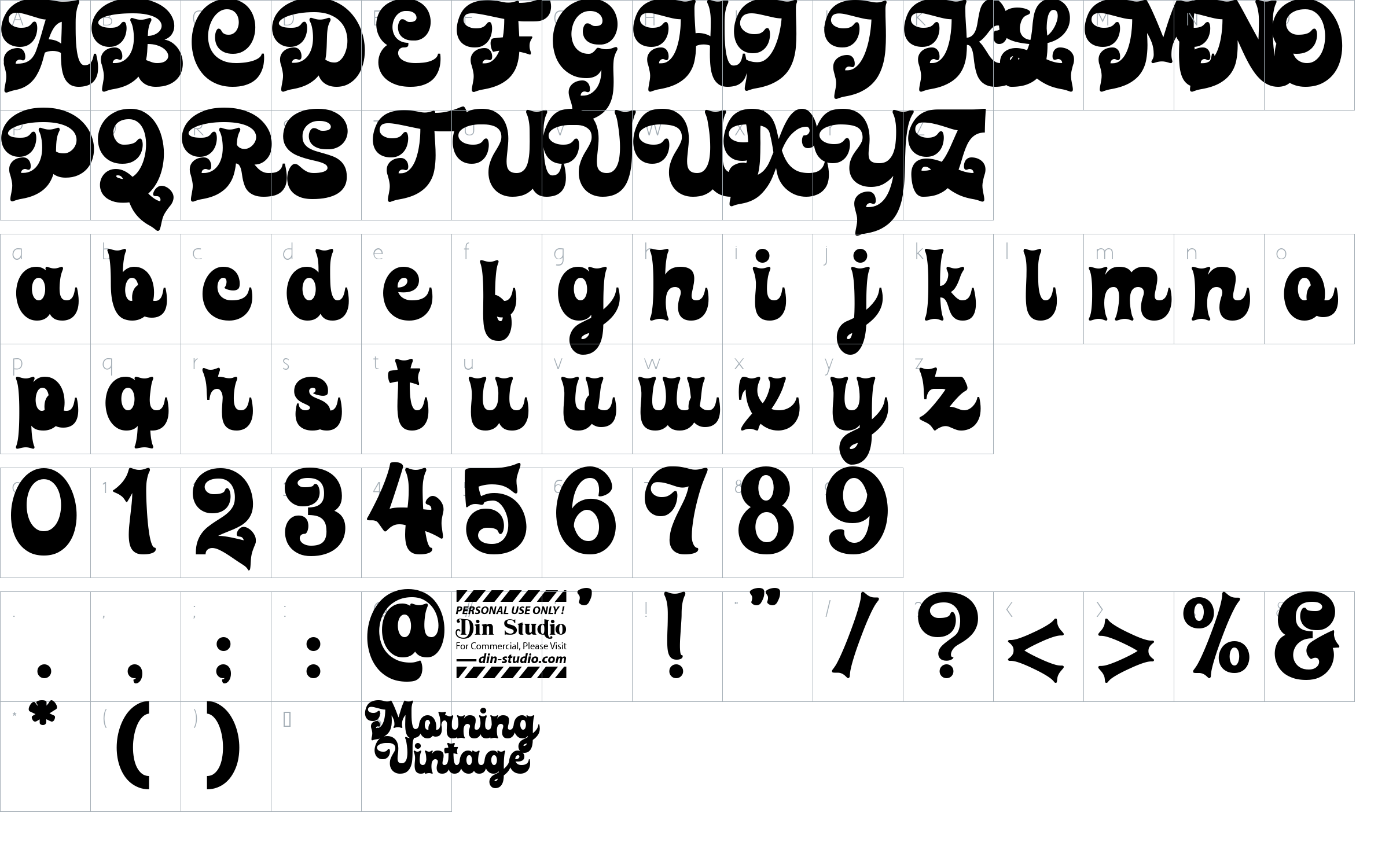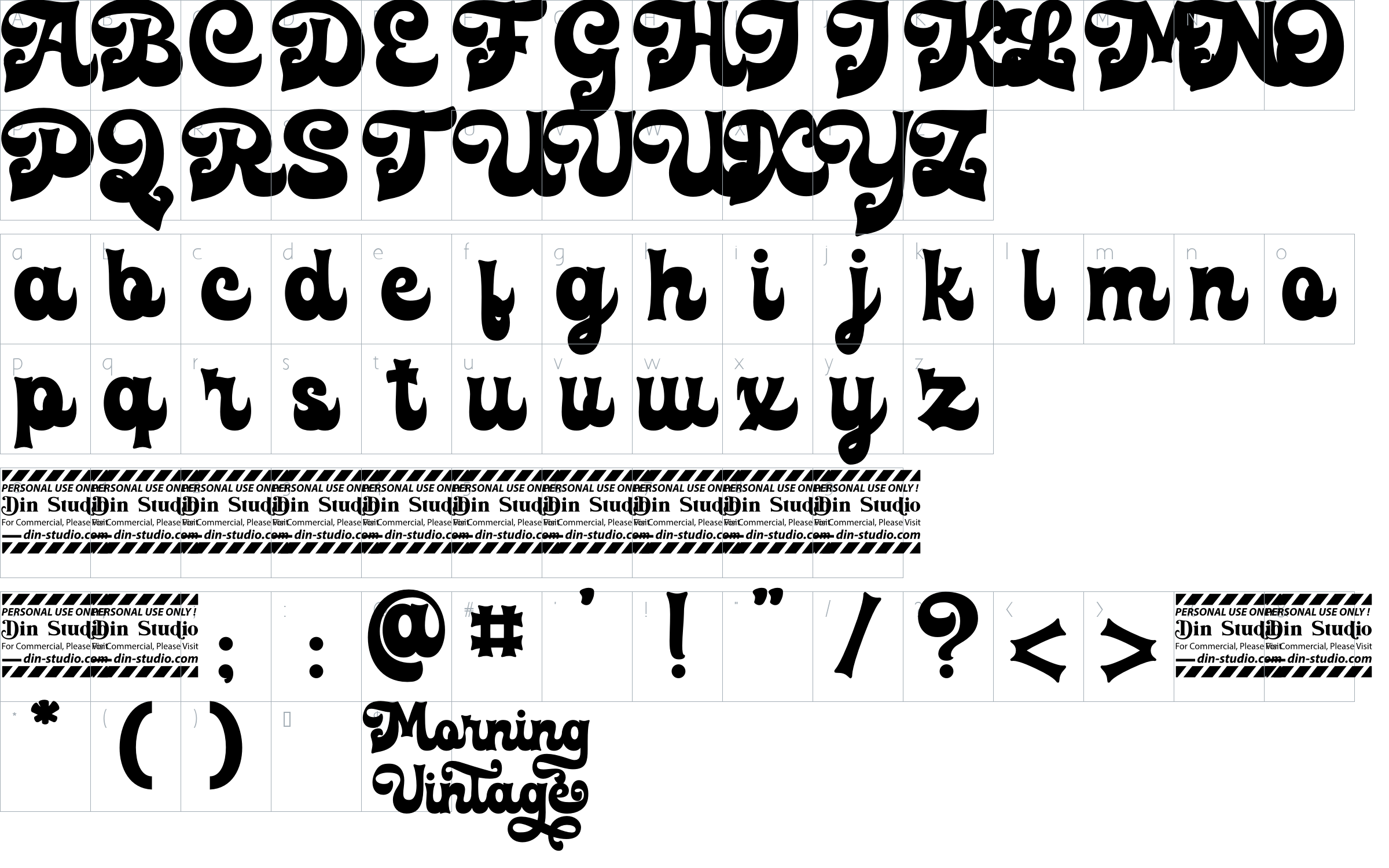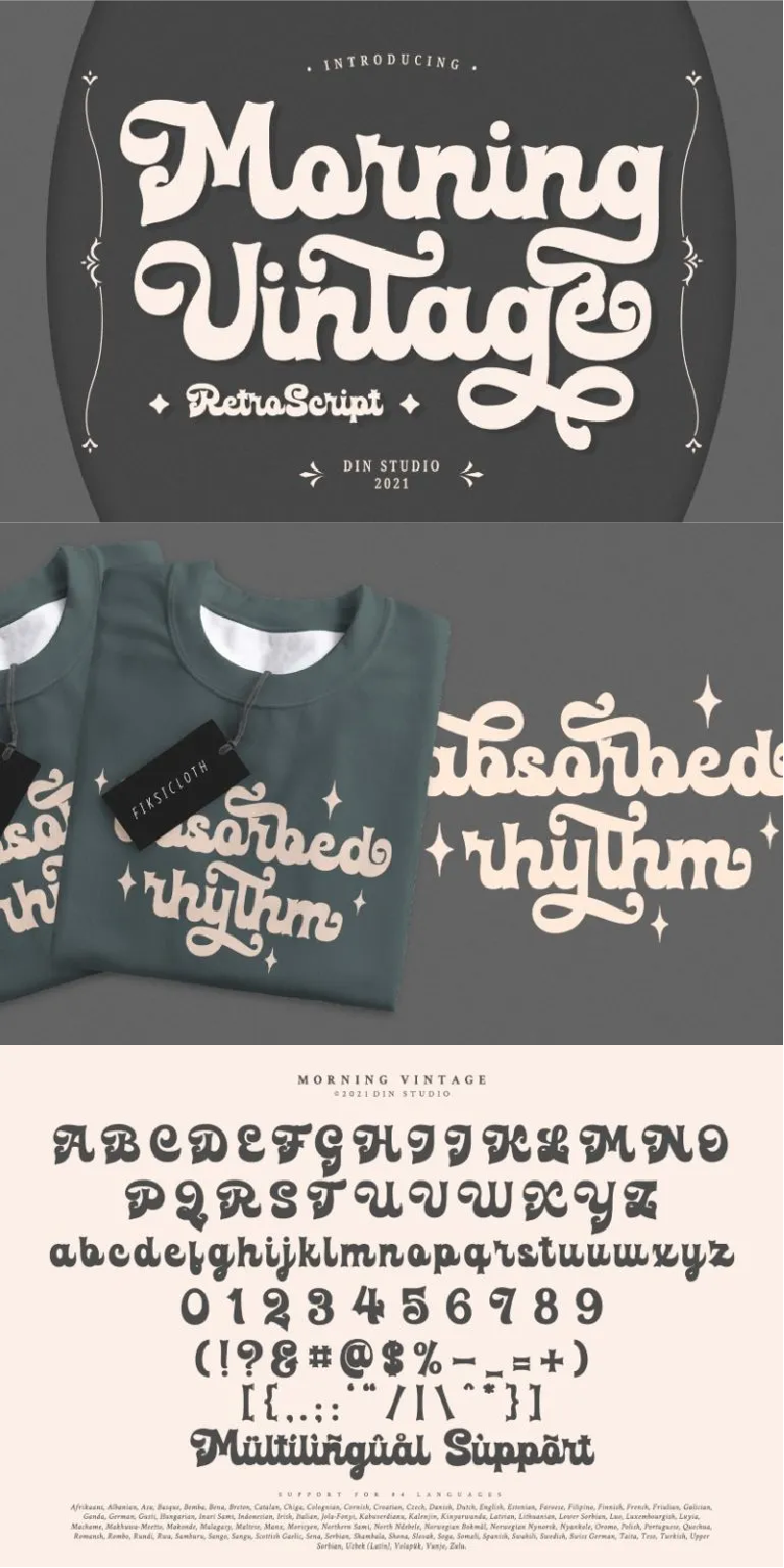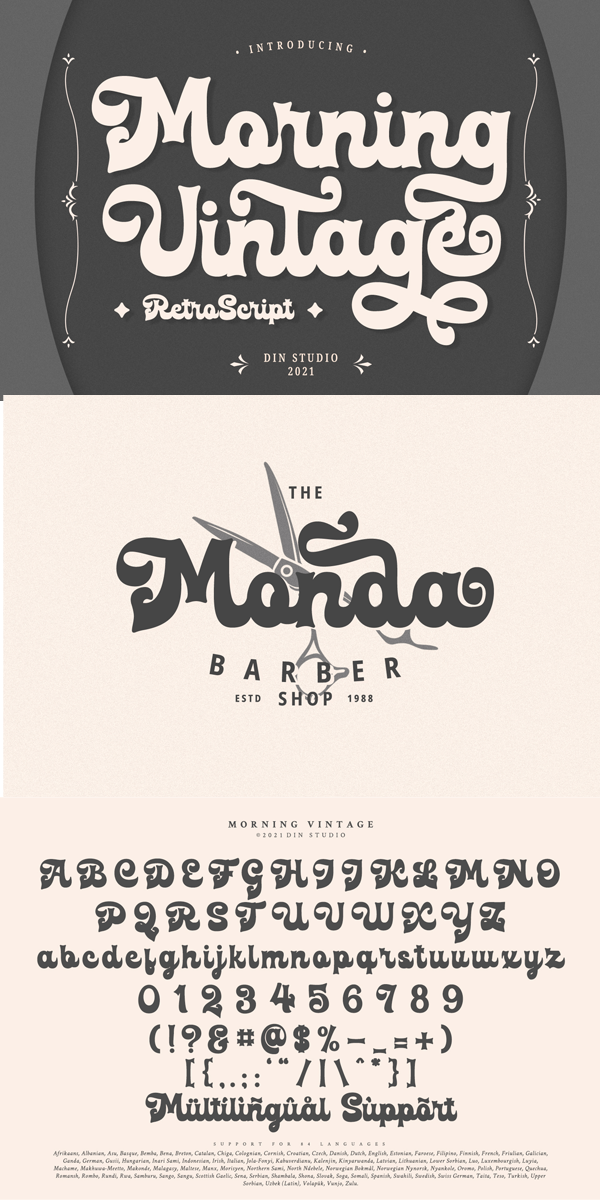
Morning Vintage Font
About Morning Vintage
Morning Vintage, a Script Font, is a handcrafted font inspired by designs and illustrations from urban styles, an excellent choice to add the right amount of street and retro vibes. It is perfect for social media branding projects, fashion designs, printed quotes, packaging, and a stylish text overlaying any background images.
Morning Vintage includes Multilingual Supports to make your brandings reach a global audience. See the previews above to get some inspiration on how you can use them. Happy Designing!